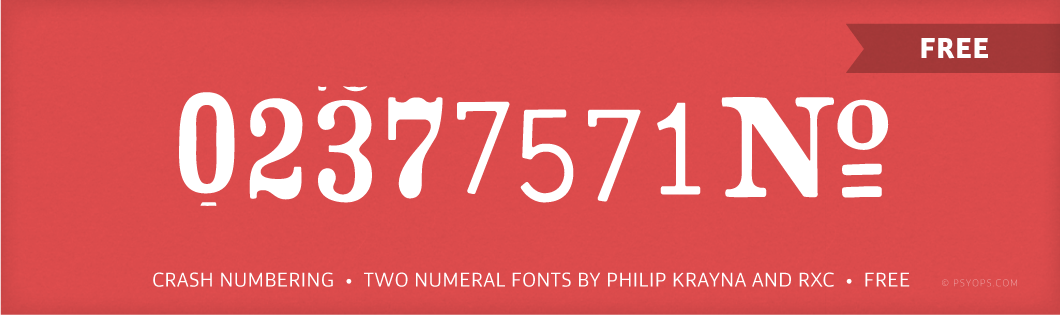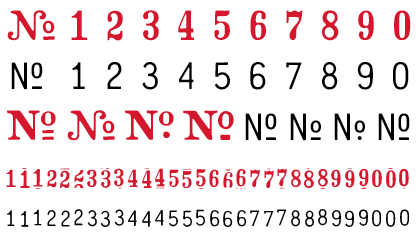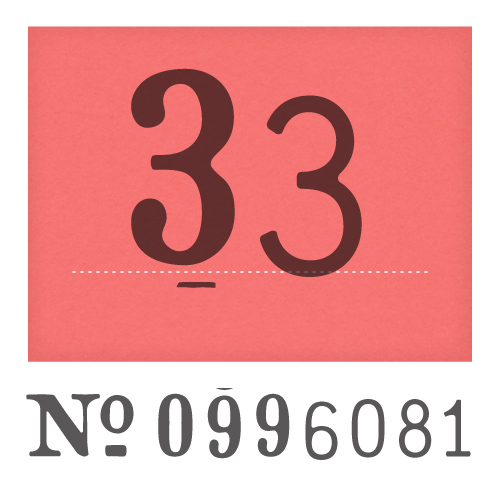
The serializing technique known as crash numbering has been in use since before computers started roaming the earth… some say as far back as the days of phrenology and 5¢ sasparillas. If you’ve ever bought a raffle ticket or been handed a claim check you’ve experienced crash numbering first hand. Our digital simulacrum, which we are proud to present here and now, includes Serif and Gothic styles; three variants of each numeral; and a smattering of numerical symbols. It’s ideal for numbering invoices, gift certificates, undergarments… anything that’ll hold still long enough to run through your inkjet printer. And it’s free.